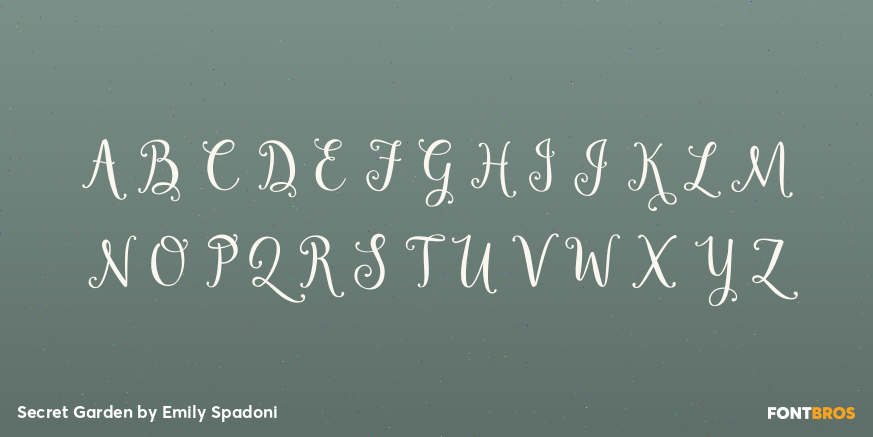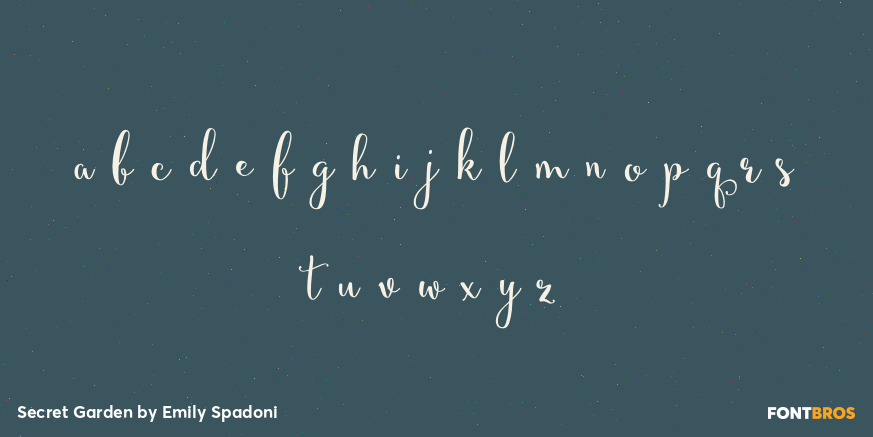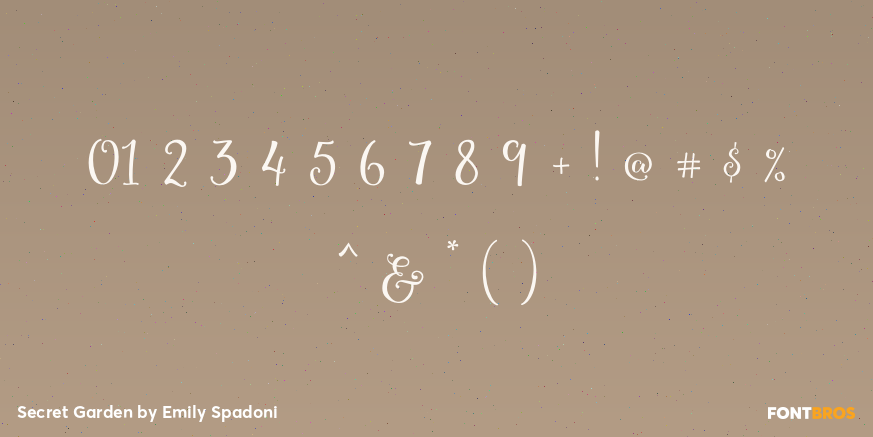
Secret Garden
Font Family by Emily Spadoni
Introducing Secret Garden. A fresh, warm decorative hand-lettered typeface. Hand-drawn characters dance along the baseline
You'll have so much fun creating your own hand-lettered text styles. The combinations of sweet swirly letters are endless.
2 variations of "Left" and 2 variations of "Right" characters.
4 added files of additional decorative glyphs, many additional common letter combinations, and even the multi-lingual glyphs are all decorated. Use "Left" and "Right" to create your own decorated word styles. In total hundreds of swirly letter combinations, create an authentic hand-made, hand-lettered style text.